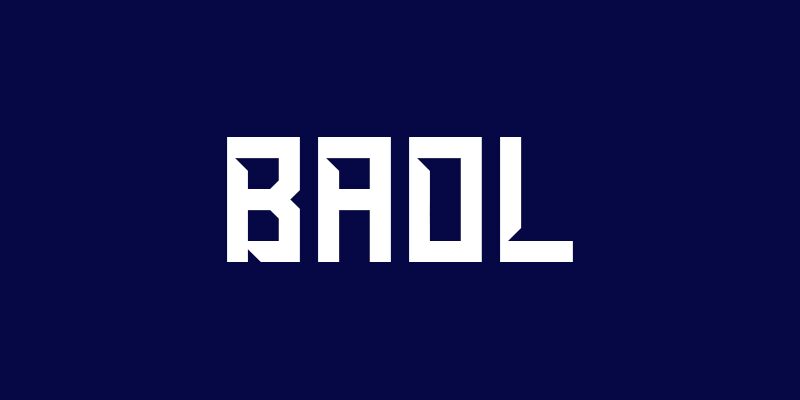
Baol Regular
Baol font is a techno typeface designed by Evloxx Studio.
We're introducing the Baol font with a unique shape that's modern and clean. This font has a feature that you can get with different font characters